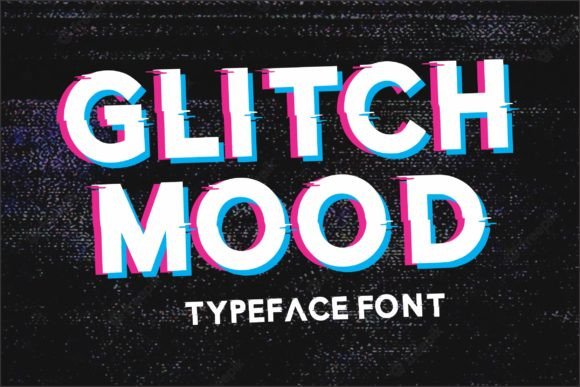
Journey into the realm of digital aesthetics with Glitch Mood, a display font that captures the essence of system errors with its unique and captivating design. Step into a world of creative possibilities and let Glitch Mood be the canvas upon which your ideas take form.
Unleash your creativity and let Glitch Mood transform your designs. Whether you're crafting eye-catching logos, designing vibrant posters, or creating unique social media graphics, Glitch Mood will add a touch of digital charm that will leave a lasting impression. It's the perfect font for those who seek to stand out from the crowd and make a bold statement.
With Glitch Mood, you'll have the power to transform ordinary text into captivating masterpieces. Its distinct character brings a sense of playfulness and intrigue to any project, making it the ideal choice for those who want to add a touch of digital whimsy to their designs.
So, dive into the world of Glitch Mood and let your imagination soar. Embrace the beauty of system errors and create designs that radiate with digital charm. Let Glitch Mood be your creative companion as you embark on a journey of visual storytelling and leave a lasting impression on your audience.
Embrace the glitch, embrace Glitch Mood.